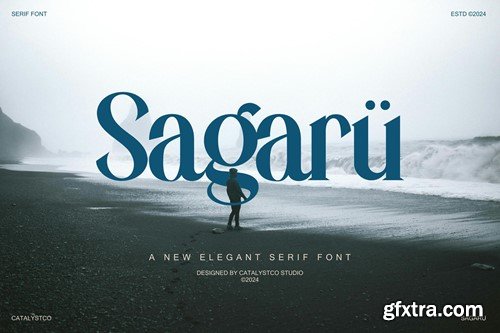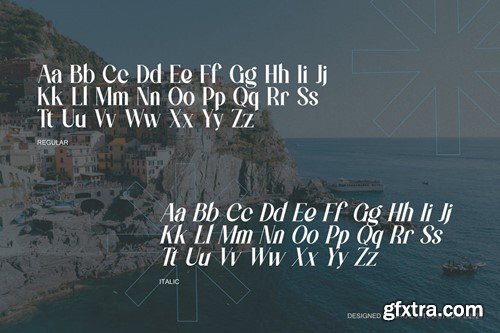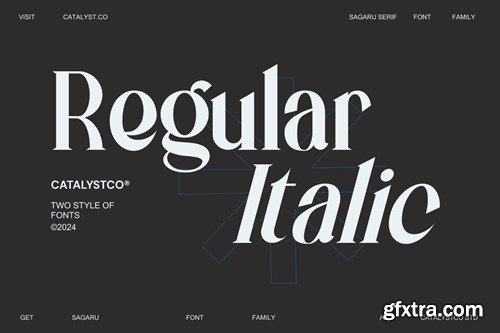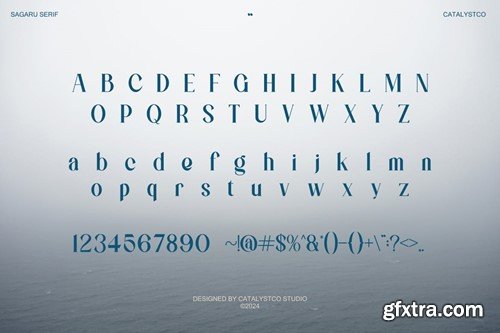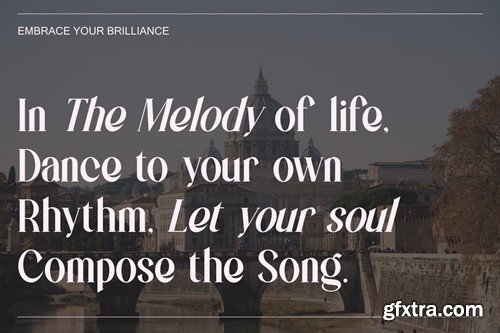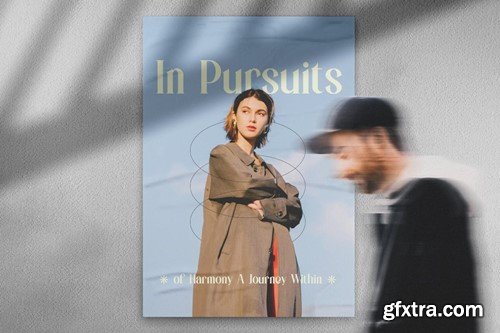
Sagaru Elegant Serif Font
Sagaru Elegant Serif Font typeface excellent used for the manufacture quote text, logotype, header magazine, and many more.
Main Features
• Ligatures & Alternate
• Numeral & Punctuations
• Regular & Italic Font Version